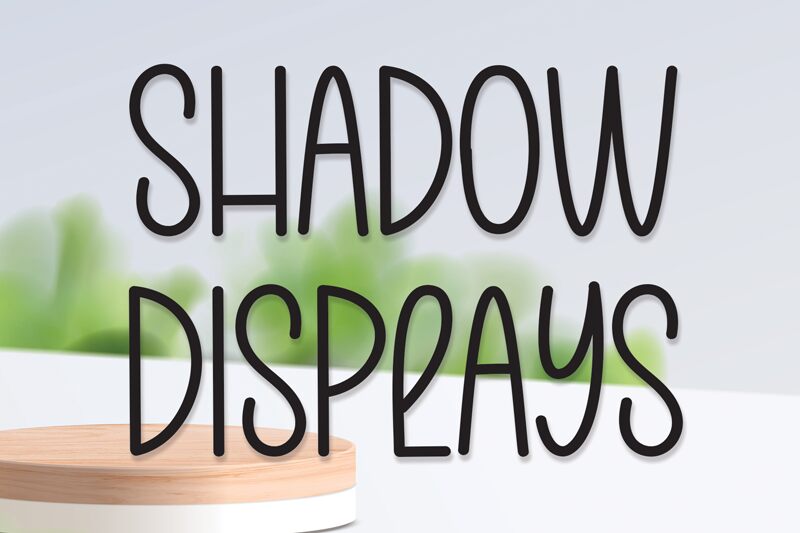
Shadow Displays
Shadow Displays is a delightful handwritten font created by the talented designer Andi Moz. With its light, condensed strokes, this font exudes a sweet and friendly charm, perfect for adding a playful touch to any design. The organic, handcrafted aesthetic of Shadow Displays captivates with its charming imperfections, conveying a sense of warmth and authenticity.
Versatile in its applications, Shadow Displays can elevate wedding invitations, greetings cards, and other designs that call for a touch of playfulness and personality. Its condensed structure ensures ample text can be accommodated without compromising the font's whimsical appeal, making it an ideal choice for a wide range of creative projects.